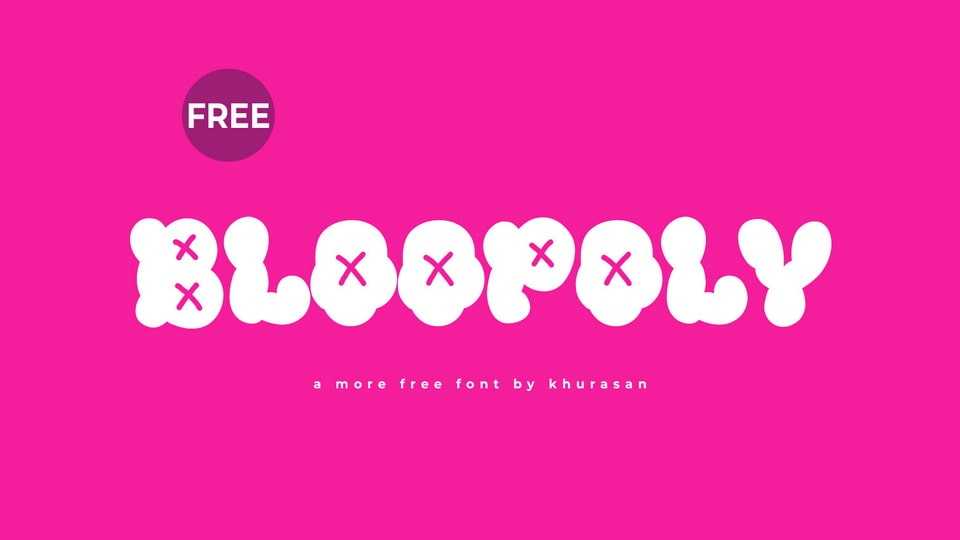
Download Bloopoly font, a playful and bubbly hand-crafted typeface that radiates fun and cheerfulness. It features rounded, plump letterforms with soft curves and whimsical details, capturing the essence of hand-drawn delight.